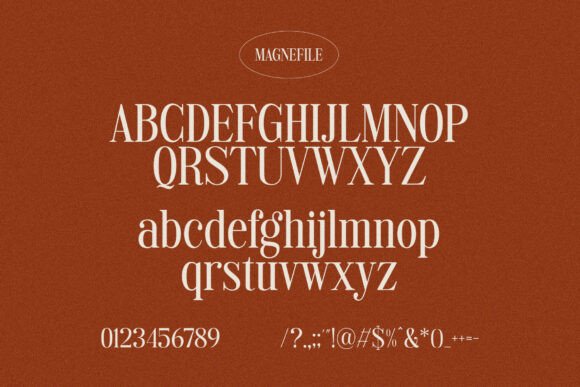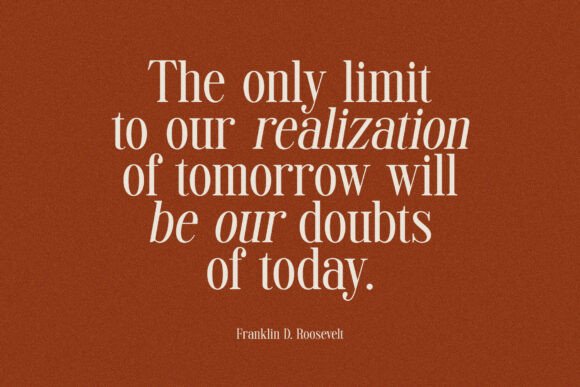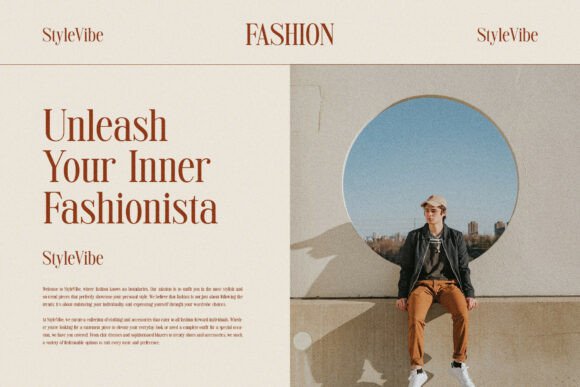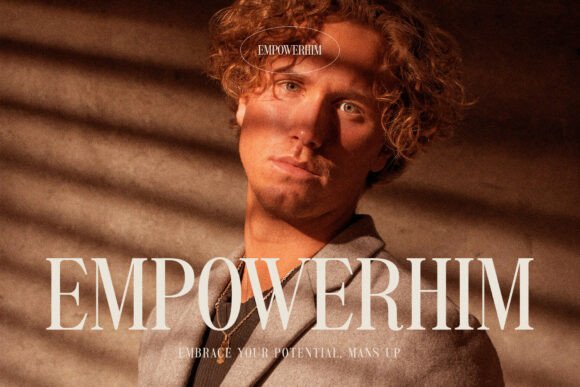
Introduction to Magnefile Font
Imagine you’re working on a creative project, pouring your heart and soul into every detail, from the typography to the color scheme. But sometimes, the perfect font can be elusive – until now. We’re excited to introduce the Magnefile Font, a modern serif font that’s about to revolutionize your design game.
As a designer, you know the importance of having a high-quality design resource that can elevate your work and make it stand out. The Magnefile Font is a game-changer, offering a unique blend of elegance and sophistication that’s perfect for branding, logos, invitations, magazines, and product packaging. With its transparent background and sleek lines, this font is a versatile design tool that’s sure to impress.
Magnefile Font Key Features
- High-quality font with a transparent background, ideal for creative projects requiring a unique design resource.
- Includes a wide range of characters, including Latin, Cyrillic, and Greek alphabets, making it suitable for multilingual projects.
- Unique, modern design with a clean and minimalist aesthetic, perfect for branding, logos, and other creative projects.
Honest Review: Magnefile Font
I recently had the opportunity to work with the Magnefile Font, and I must say it’s a solid addition to any designer’s toolkit. As a design resource, it offers a high-quality experience that’s perfect for creative projects.
- ✨ The font is incredibly versatile and can be used for a wide range of applications, from web design to print materials.
- ✨ The transparent background option is a game-changer, allowing for seamless integration into any design.
That being said, there are a few limitations to keep in mind:
- ⚠️ The font may not be suitable for all types of text-based content, particularly where readability is a top priority.
Overall, I’m impressed with the Magnefile Font. It’s a great choice for designers looking for a high-quality, versatile font that won’t break the bank. While it may have some limitations, it’s definitely worth considering for your next creative project.